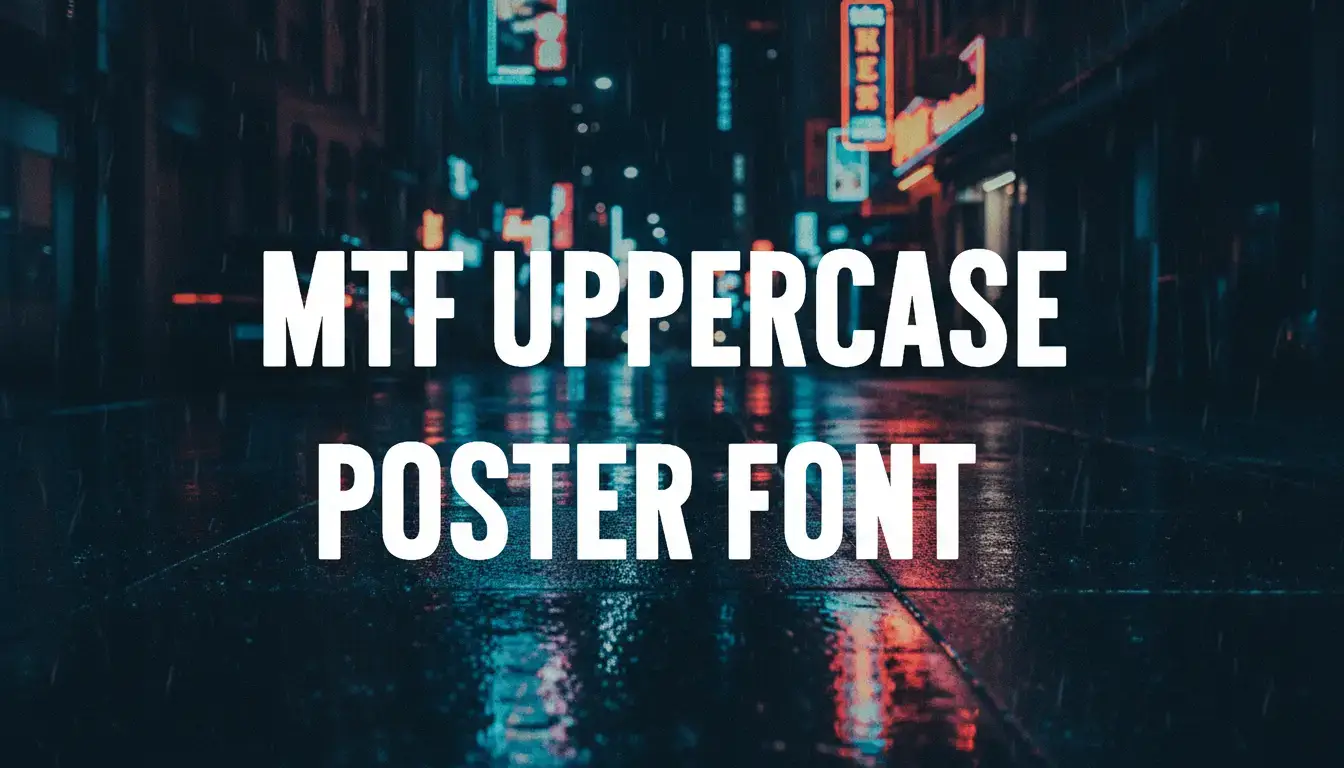
MTF Uppercase Poster Font
MTF Uppercase Poster is a Western font designed by Miss Tiina – Tina Raparanta and published by Miss Tiina Fonts. It has the bold, wood-type look of Wild West wanted posters and saloon signs. You get two styles in one free ZIP, and the preview above lets you test each one before you download.
- Font styles: 2 (Regular and Thin)
- Glyphs: 209 in the Regular style
What You Can Type With MTF Uppercase Poster
With complete upper and lowercase letters and all ten digits, MTF Uppercase Poster is ready for real wording, not just a single headline. Everyday marks like &, !, ? and @ are there too. Thanks to its accented letters, it also works for Spanish, French, German, Portuguese and Italian, not just English.
Where MTF Uppercase Poster Works Best
Designers usually reach for fonts like MTF Uppercase Poster when they're making rodeo posters, saloon signs and country music flyers. Try it in brown, rust or cream on a paper texture for the full old-west look. Because the family has more than one style, you can mix them in a single design for headings, subheadings and highlights.
Does MTF Uppercase Poster support accented letters?
Yes. MTF Uppercase Poster includes the accented letters needed for Spanish, French, German, Portuguese and Italian, so it works for more than just English.
What fonts pair well with MTF Uppercase Poster?
A sturdy slab serif or a simple serif works well for the smaller text.